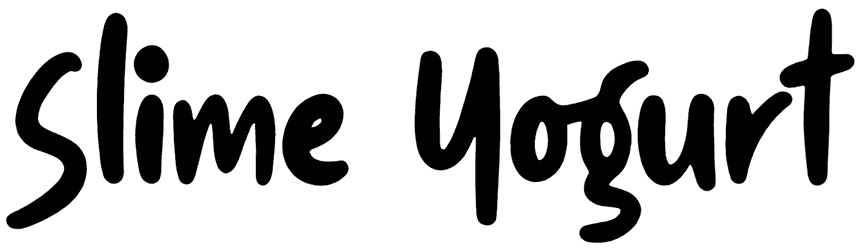
Slime Yogurt Font
Meet Slime Yogurt, a playful handwritten font that might be a great choice for bringing a fresh, sweet flavor to your design. It looks bold and smooth with an adorable set of characters. This food font can be used for a wide range of contexts, such as product packaging, comic books, party invitations, video games, and other kids’ kid-friendly projects.